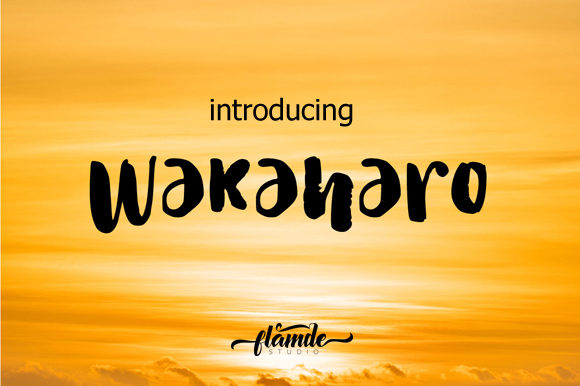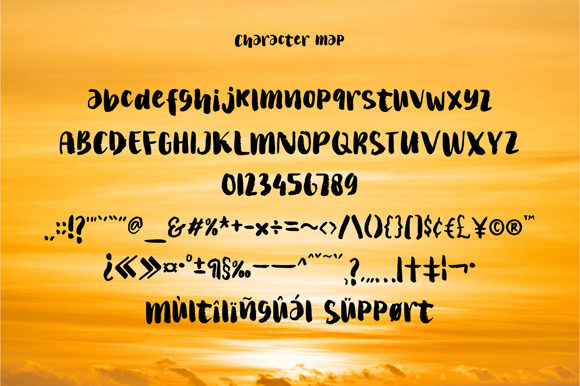
About Wakaharo Font
Introducing The Wakaharo, a bold and fun font designed to infuse a friendly and playful touch into your designs. This font is not just a typeface; it’s a design asset crafted to bring a sense of joy and approachability to your creative projects.
The Wakaharo’s bold and fun characteristics make it perfect for designs that seek to convey a playful and friendly vibe. Whether you’re working on branding, posters, social media graphics, or any project that calls for a lighthearted atmosphere, The Wakaharo delivers with its bold and friendly feel.
Its versatility allows The Wakaharo to adapt seamlessly to various design contexts. From logos that want to radiate approachability to promotional materials that aim to engage, this font becomes a valuable tool in your creative toolkit.
In branding, The Wakaharo establishes a friendly and memorable visual identity. For posters and advertising materials, its bold and fun letters add an inviting charm. Social media graphics created with The Wakaharo exude a lighthearted and playful energy.
In summary, The Wakaharo is more than just a font; it’s a design companion that brings boldness and fun to your creative projects. Embrace its friendly feel for branding, posters, social media, and more, and let The Wakaharo add a playful touch to your designs.